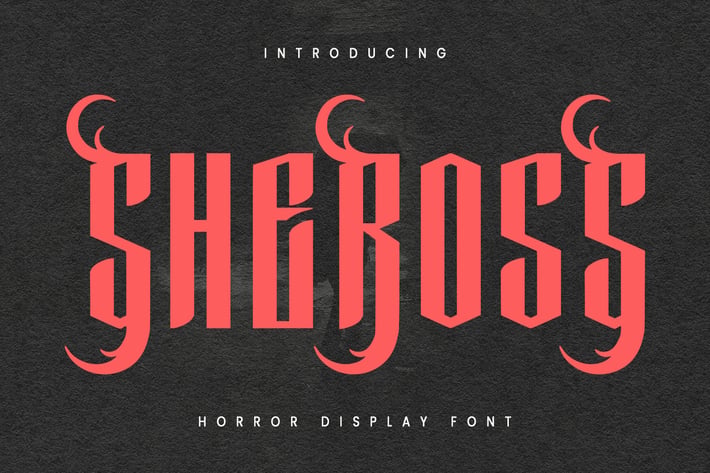
Sheross Horror Display Font
Sheross is a futuristic horror display font. With bold stroke, fun character with some of alternate. To give you an extra creative work, Sheross Display font support multilingual more than 100+ language. This font is good for logo design, Social media, Movie Titles, Books Titles, a short text even a long text letter and good for your secondary text font with script or signature typeface. Make a stunning work with Sheross is a futuristic horror display font.